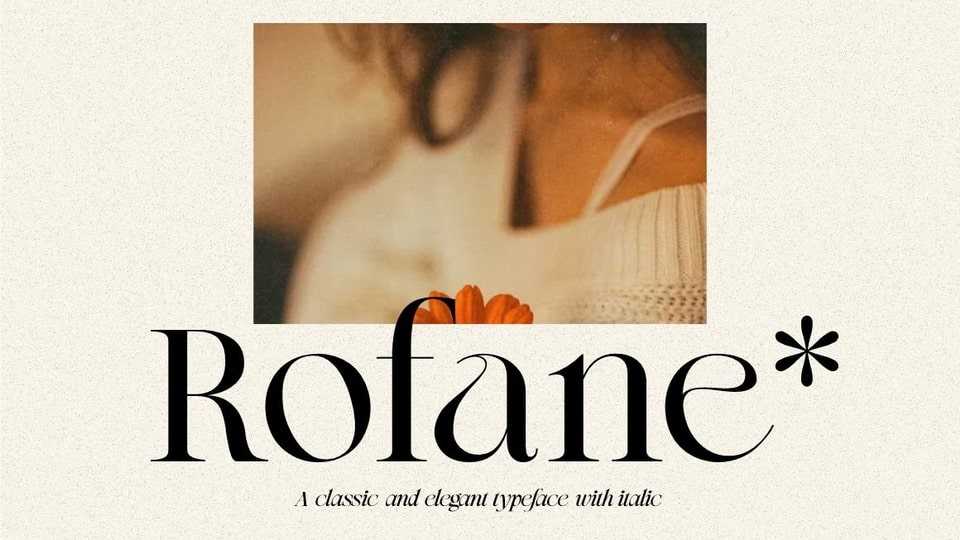
Download Rofane font, a classy and modern typeface that exudes timeless charm and elegance, designed with tight kerning and spacing to achieve a more aesthetic appearance.
Designer: Reyrey Blue